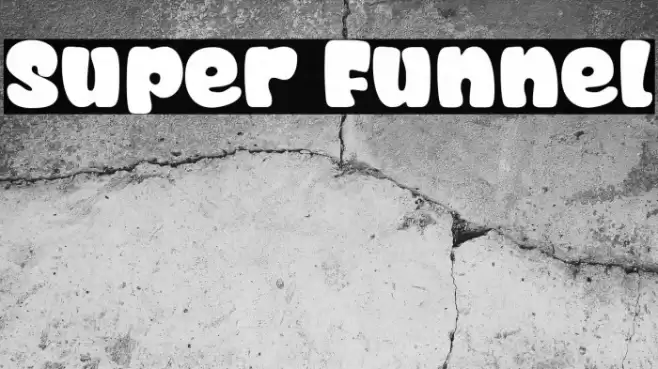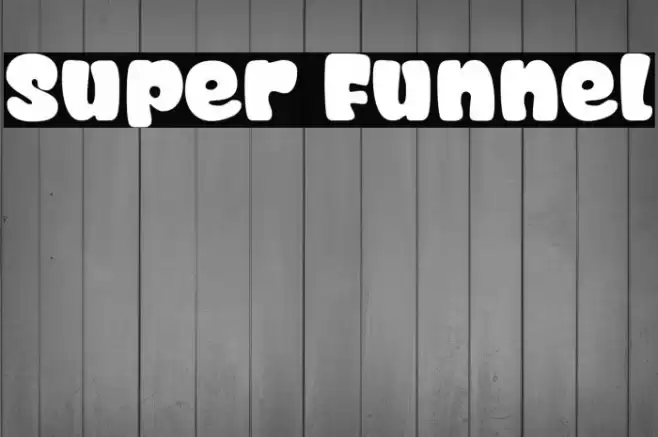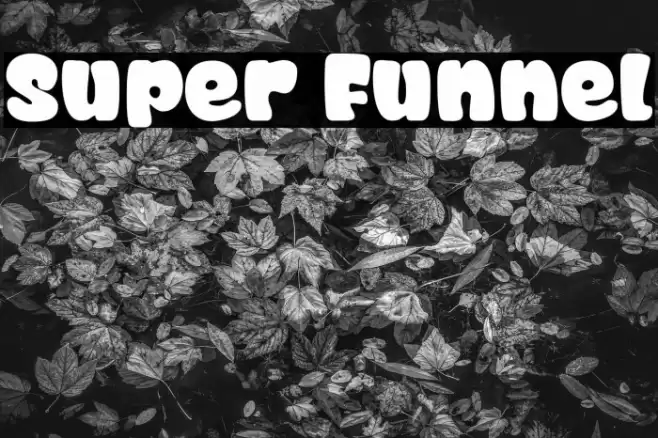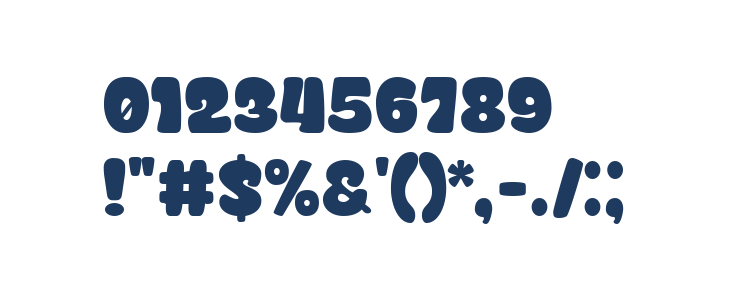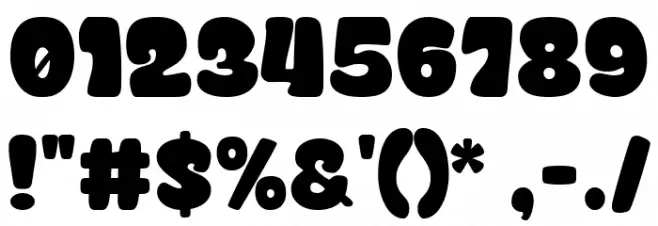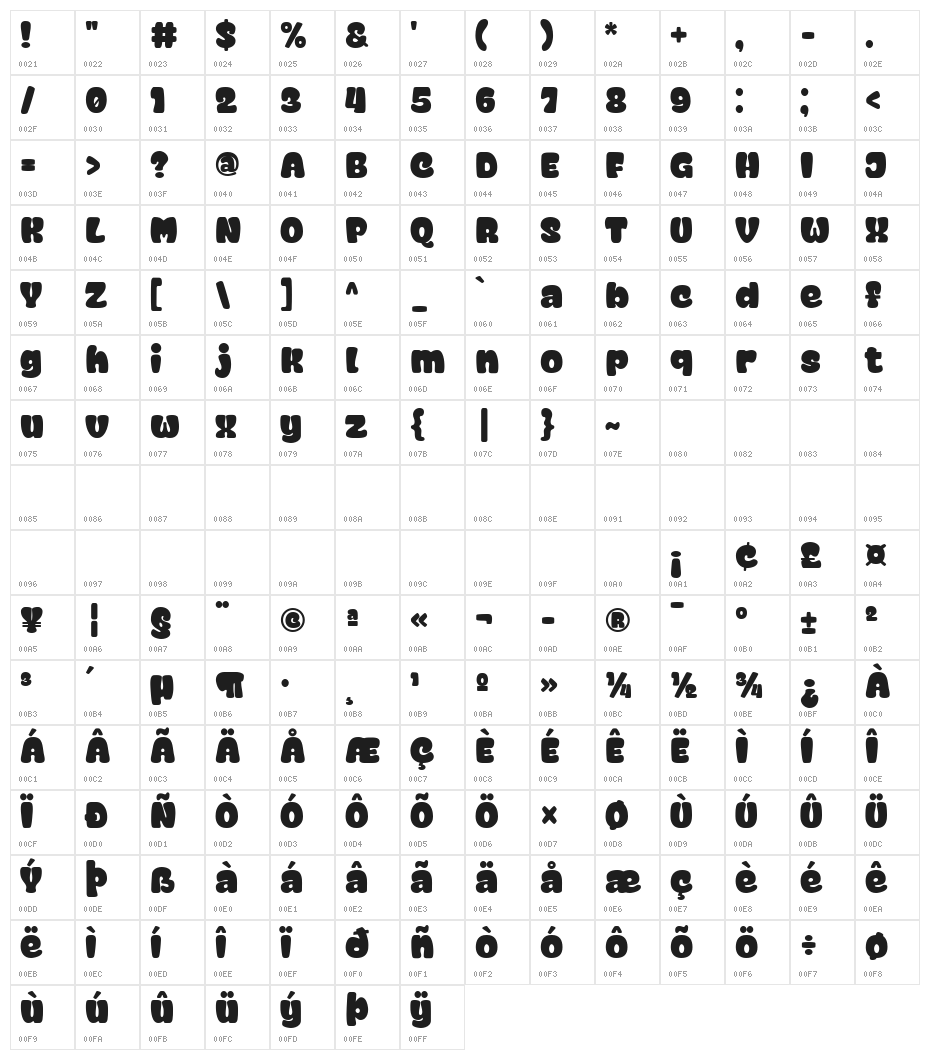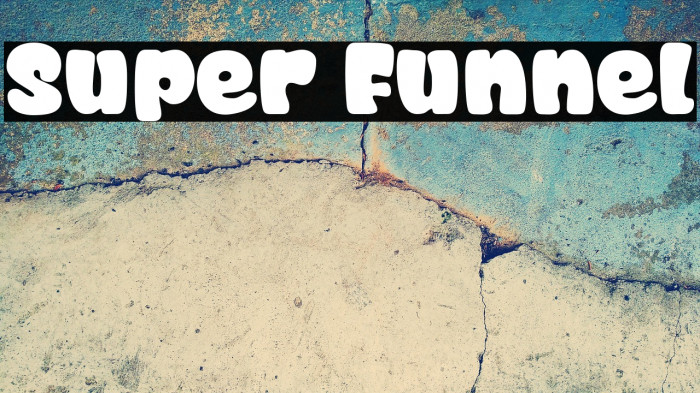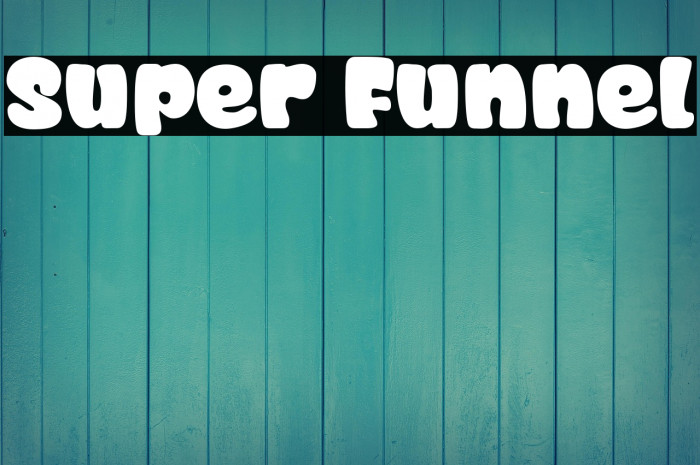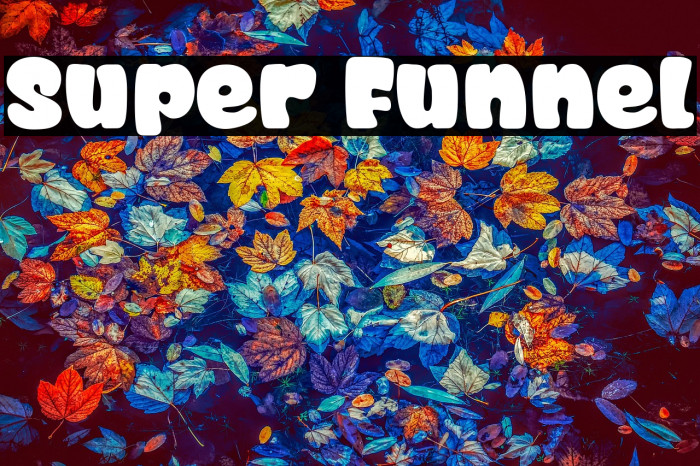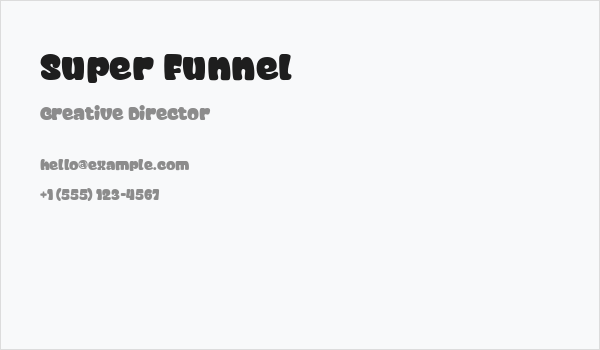
Super Funnel Font
Super Funnel Description
This font features a bold and playful design with rounded, bubbly characters that convey a sense of fun and approachability. The letters are thick and heavy, with a consistent stroke width that gives them a strong presence. The overall appearance is reminiscent of retro or vintage styles, yet it maintains a modern twist with its smooth curves and clean lines. The font includes a full set of uppercase and lowercase letters, numbers, and a variety of special characters, making it versatile for different design needs. Its unique style makes it stand out, ideal for projects that require a touch of whimsy and creativity.
A bold, playful font with rounded, bubbly characters and a retro-modern style from Uncategorized fonts.
- Font: Super Funnel
- Proposed Projects: Ideal for children's books, playful branding, party invitations, and retro-themed designs.
- Overall Style: Playful, Retro, Modern